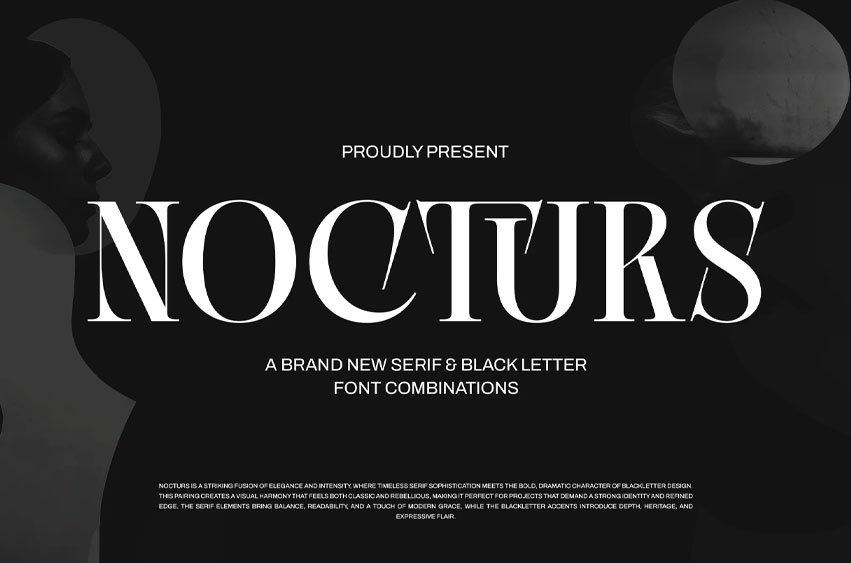
Nocturs Font is a striking fusion of elegance and intensity, where timeless serif sophistication meets the bold, dramatic character of blackletter design.
This pairing creates a visual harmony that feels both classic and rebellious, making it perfect for projects that demand a strong identity and refined edge.
The serif elements bring balance, readability, and a touch of modern grace, while the blackletter accents introduce depth, heritage, and expressive flair.